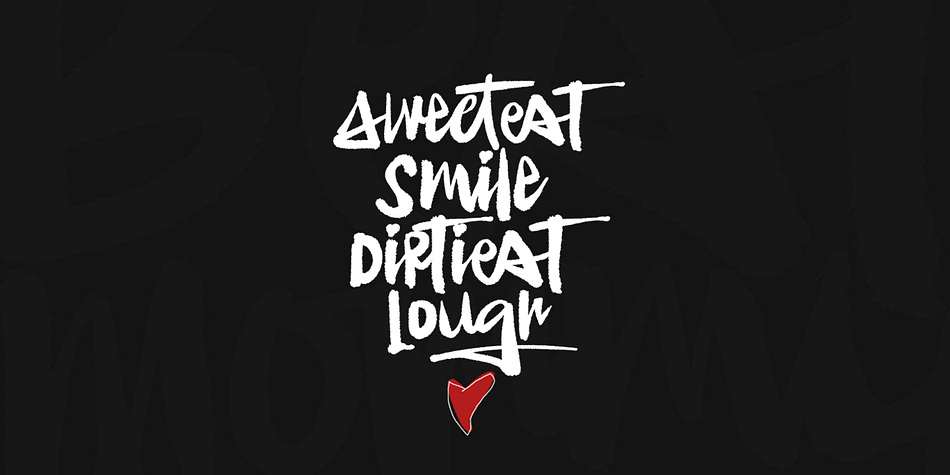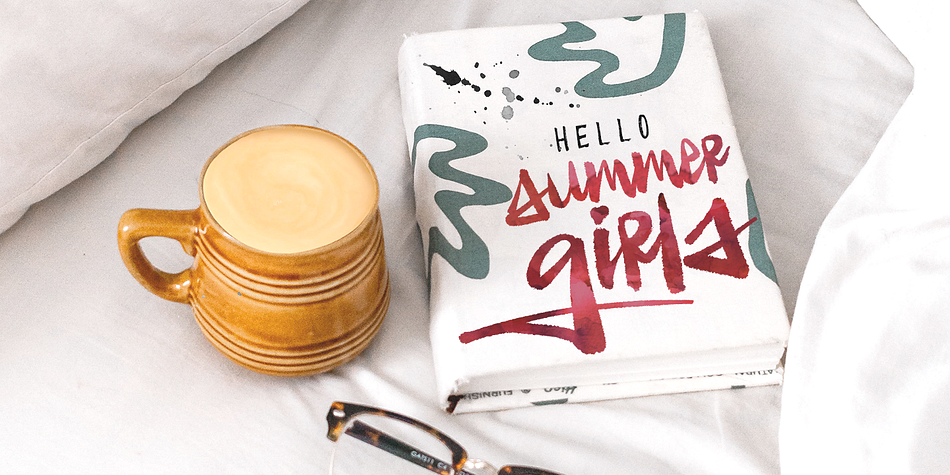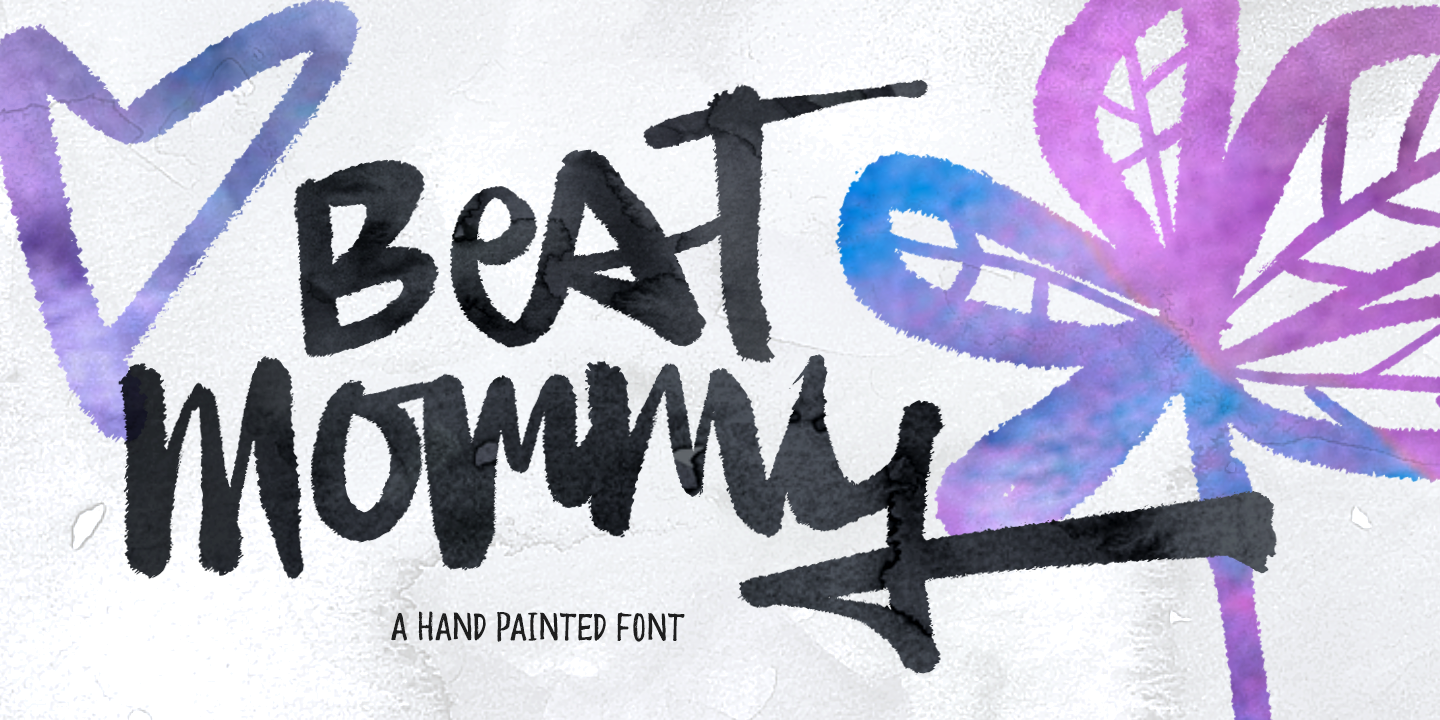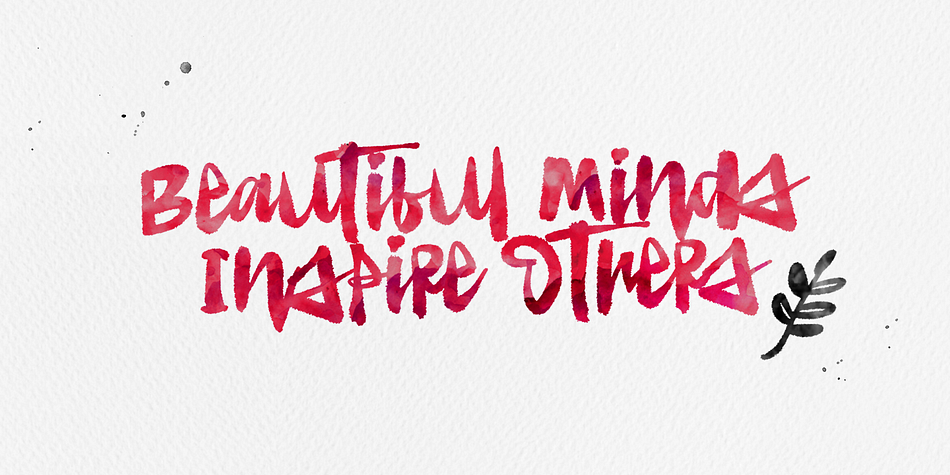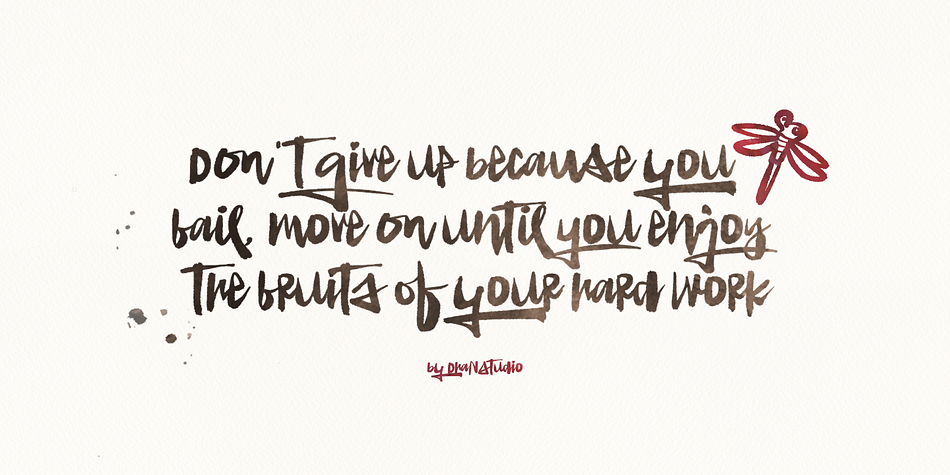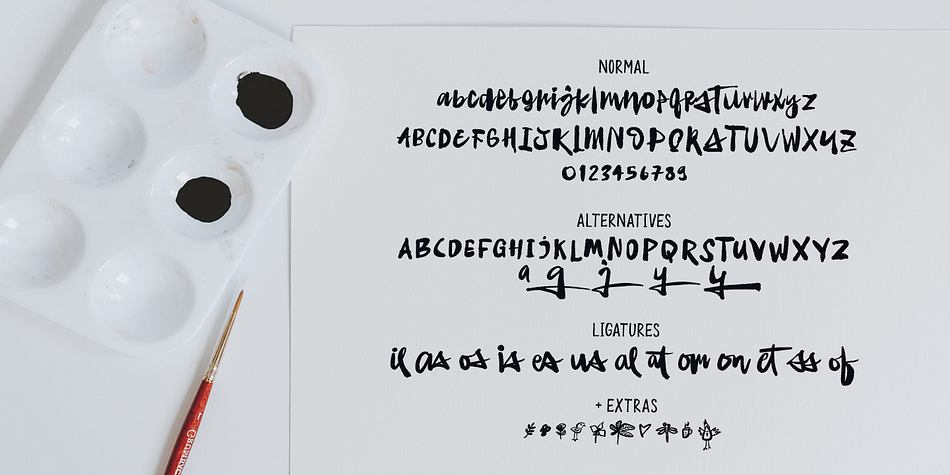
Best Mommy is a hand display, script and dingbat font family. This typeface has two styles and was published by Dhan Studio.
Best Mommny is a beautiful hand-painted font that looks more natural and fun, combines a mixture of lowercase ligatures, uppercase alternatives and several lowercase alternatives and makes it look attractive and unique, also includes some cute extras that you can use your designs for.